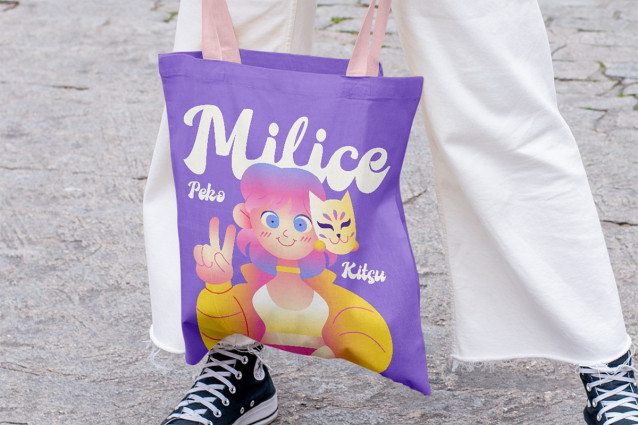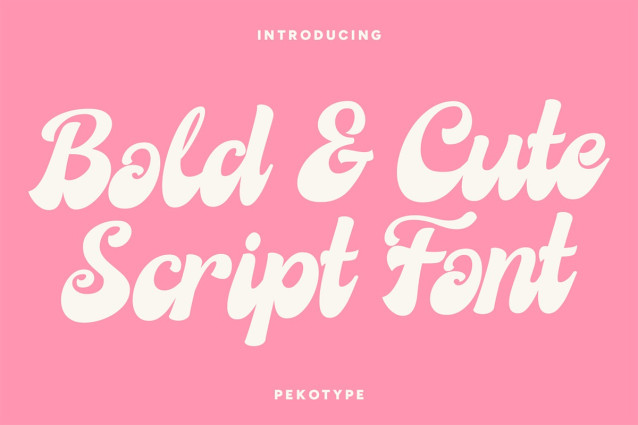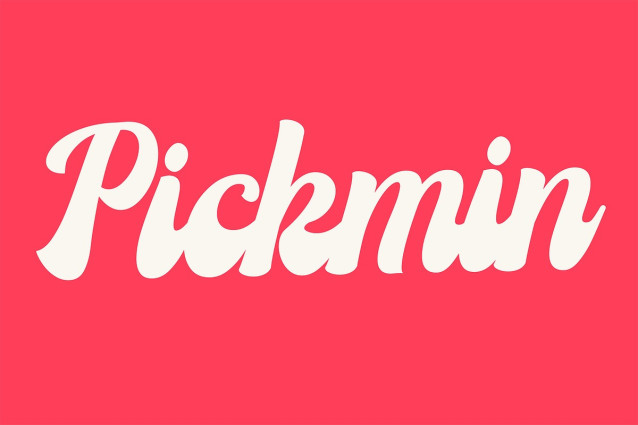
Pickmin Script Font
Pickmin Script Font a playful, cursive, and irresistibly charming script font designed to make your projects pop! With its bold strokes, smooth curves, and delightful personality, Pickmin is perfect for branding, logos, cafes, merchandise, social media, and more.
Inspired by the sweetness of strawberries and the charm of handwritten lettering, Pickmin brings a fun and friendly vibe to any design. Whether you’re crafting an adorable cafe logo, a cute merchandise design, or eye-catching social media content, this font will add warmth, energy, and a touch of pink perfection to your creations.